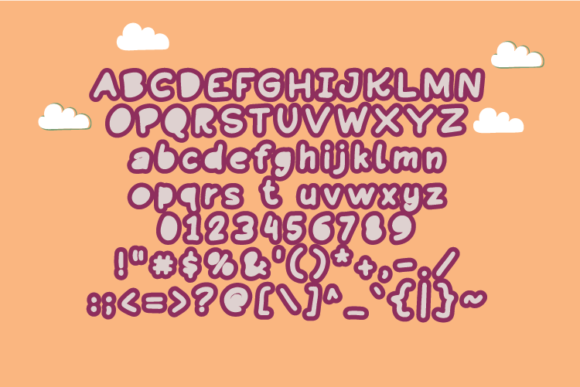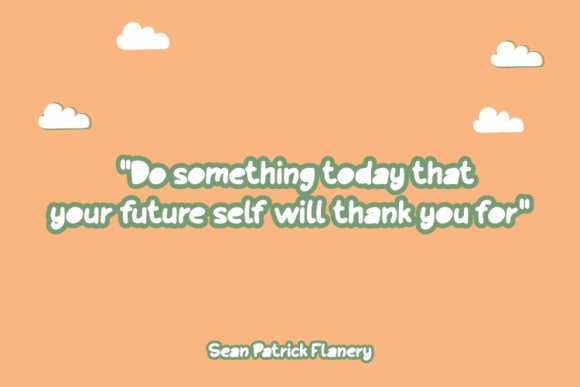
Introduction to Kornelove Font
Remember the thrill of discovering a new, perfect font for your design project? For designers and creatives, it’s like stumbling upon a hidden treasure – a game-changer that elevates their work from good to great. One such treasure is the Kornelove Font, a charming display font that exudes playfulness and authenticity.
As a design resource, Kornelove Font is a valuable addition to any designer’s toolkit. Its high quality and versatility make it an ideal choice for various creative projects, from children’s activities to school projects. With a transparent background, it’s perfect for overlaying text on images or creating eye-catching graphics. And the best part? You can download it for free, making it an accessible design resource for designers of all levels.
Key Features of Kornelove Font
- High-quality font design suitable for creative projects and various design resources.
- Features a unique and creative style, perfect for adding a touch of personality to any design project.
- Includes a transparent background option, allowing for seamless integration with various design elements.
Honest Review: Kornelove Font
As a designer, I’m always on the lookout for unique and high-quality design resources. The Kornelove Font caught my eye, and I was excited to dive in and see what it had to offer.
- ✨ The Kornelove Font is incredibly versatile, with a wide range of styles and weights to choose from. This makes it perfect for a variety of creative projects.
- ✨ The transparent background is a nice touch, making it easy to use the font in a variety of design contexts.
- ⚠️ The Kornelove Font may not be the best choice for professional or high-stakes projects. While it’s high quality, it’s not as polished as some other commercial fonts.
- ⚠️ The font may not be suitable for small text, as some of the letters can be quite ornate and may be difficult to read at smaller sizes.
Overall, I’m impressed with the Kornelove Font. It’s a great addition to any designer’s toolkit, and it’s perfect for creative projects where a unique and eye-catching font is needed.
Getting the Most Out of Kornelove Font
To get the most out of the Kornelove Font, use it on a transparent background to create a high-quality design element. This font is perfect for creative projects that require a unique and stylish touch.
Kornelove Font is ideal for use in a variety of creative projects, including:
– Social media graphics
– Branding materials
– Advertising campaigns
– Web design elements